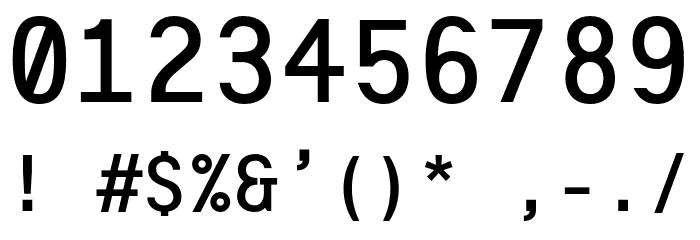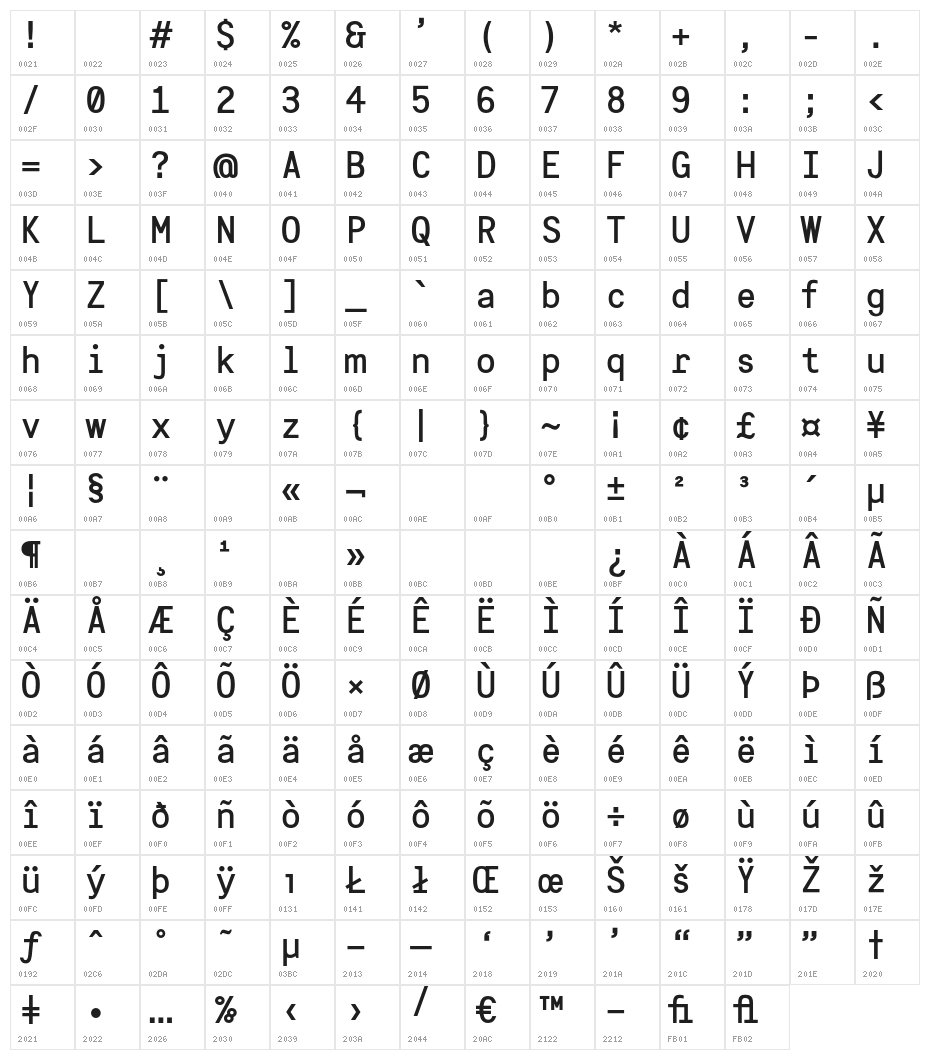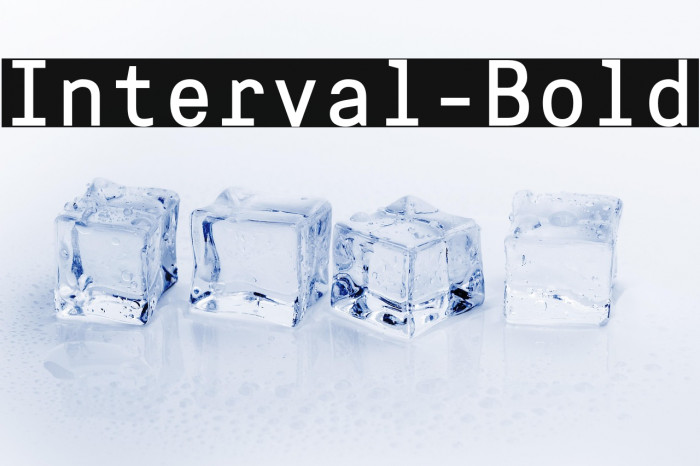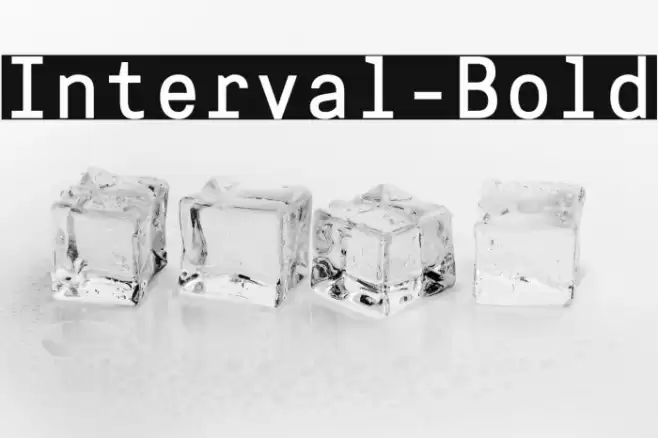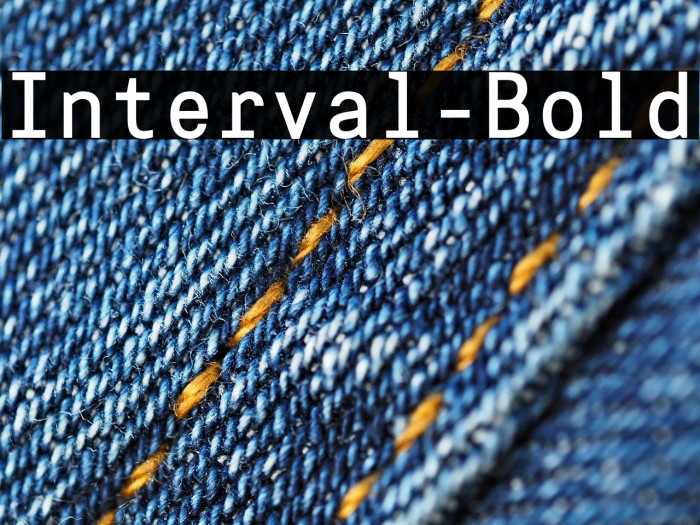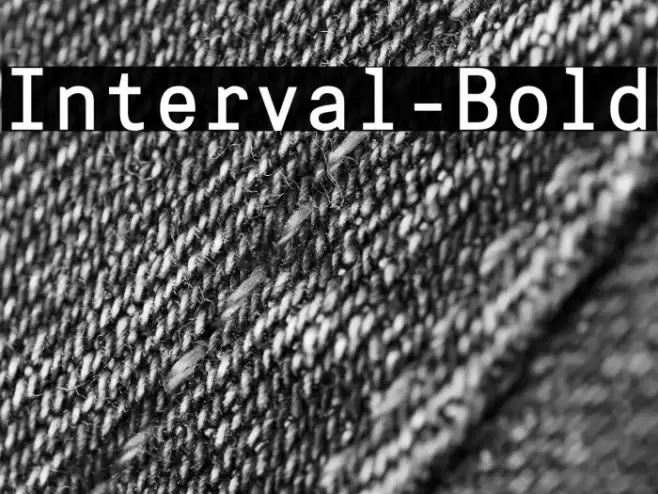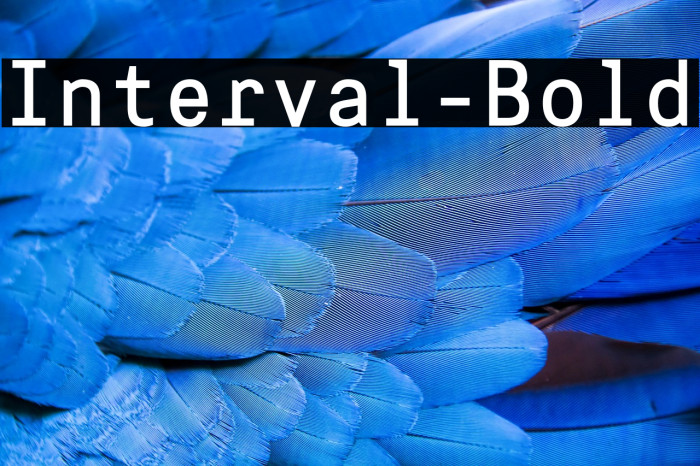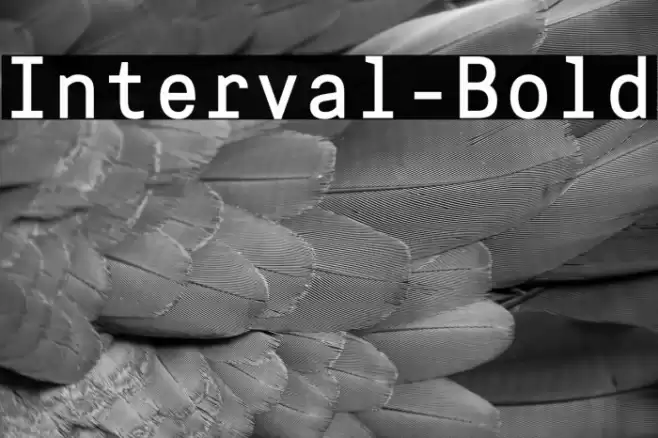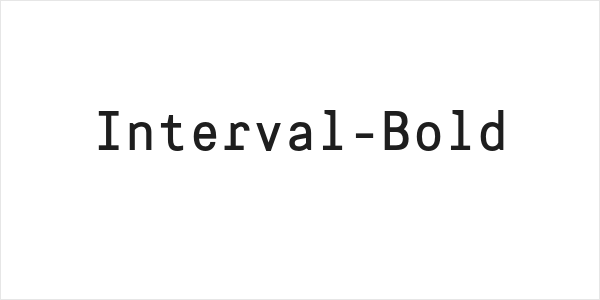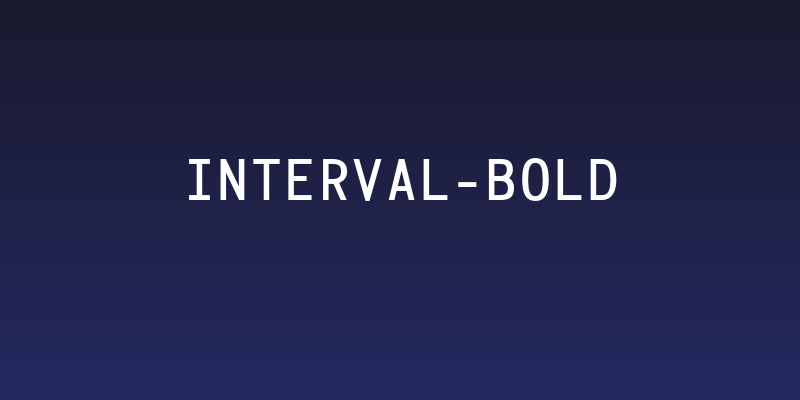
Interval-Bold Font
Interval-Bold Description
This font is a bold, sans-serif typeface characterized by its clean and modern appearance. The letters are uniform in width, providing a balanced and structured look. The uppercase and lowercase letters are well-proportioned, with a slight geometric influence that enhances readability. The numerals are clear and distinct, making them suitable for various applications. The special characters are designed to complement the overall style, maintaining the font's cohesive appearance. This typeface is versatile, making it suitable for both digital and print media.